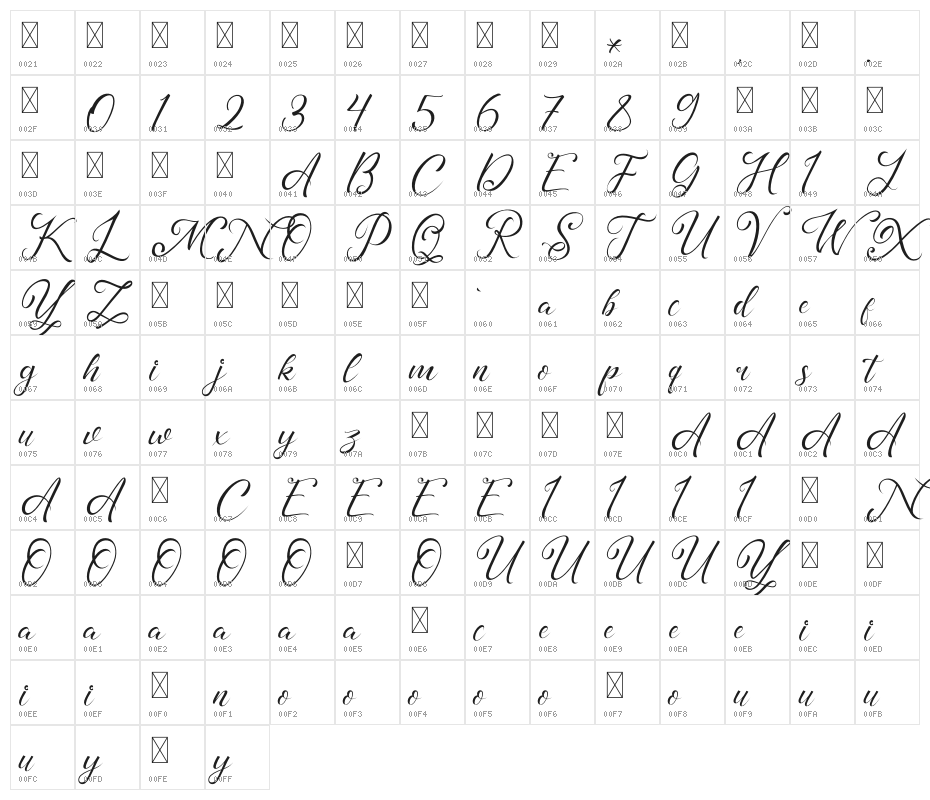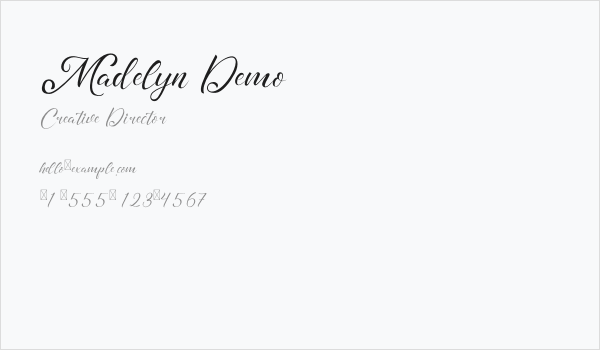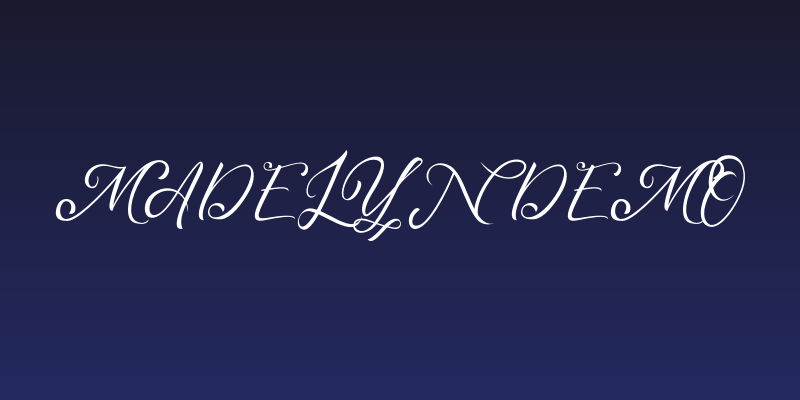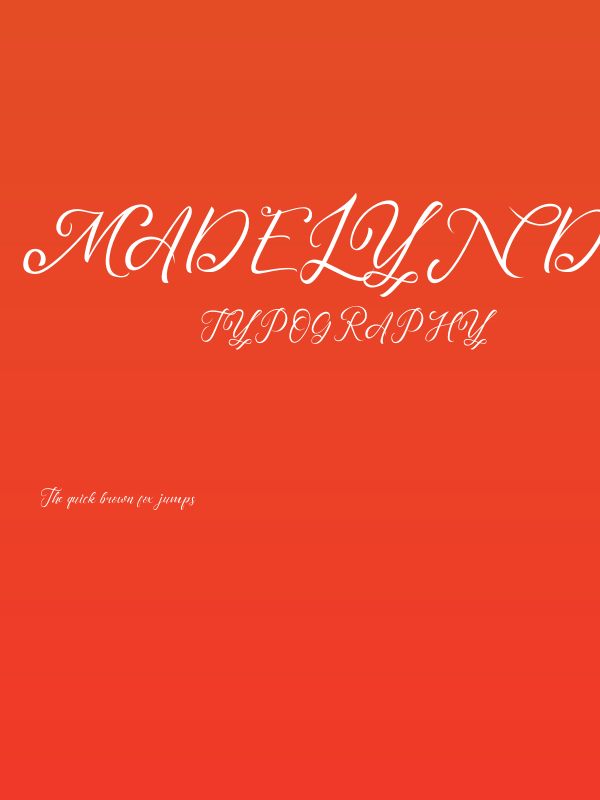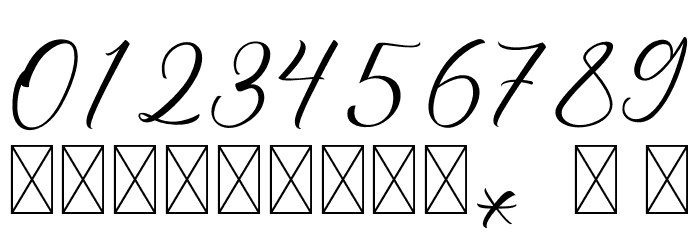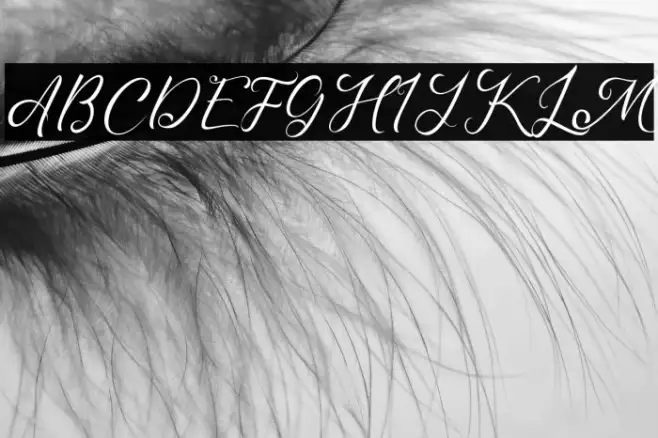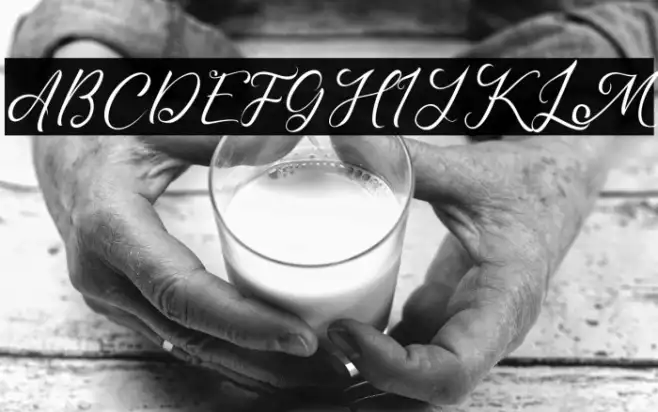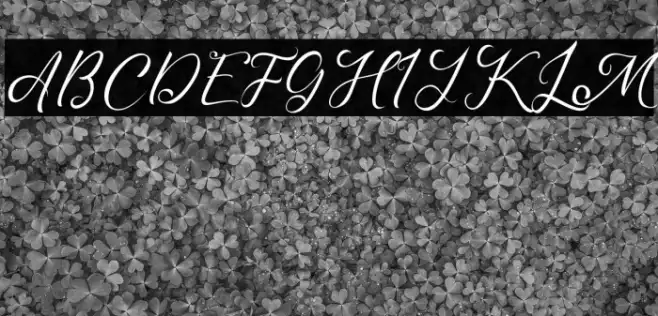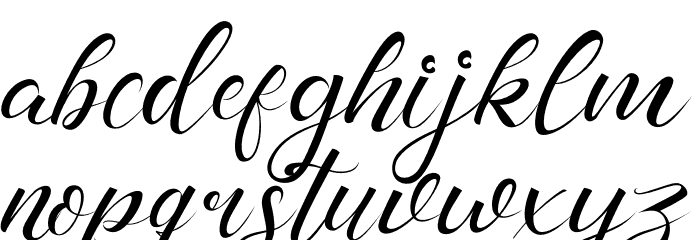
Madelyn Demo Font
Madelyn Demo Description
This elegant script font features a flowing, cursive style with intricate loops and swashes. The uppercase letters are adorned with decorative flourishes, giving them a sophisticated and artistic appearance. The lowercase letters maintain a smooth, connected flow, enhancing readability while retaining a stylish flair. The numerals are consistent with the script's overall aesthetic, featuring gentle curves and a graceful form. This font exudes a sense of elegance and refinement, making it ideal for formal invitations, branding, and other creative projects that require a touch of class.
| Use Case | Headlines, Invitations, Branding |
| Proposed Projects | Ideal for wedding invitations, luxury branding, greeting cards, and elegant packaging designs. |